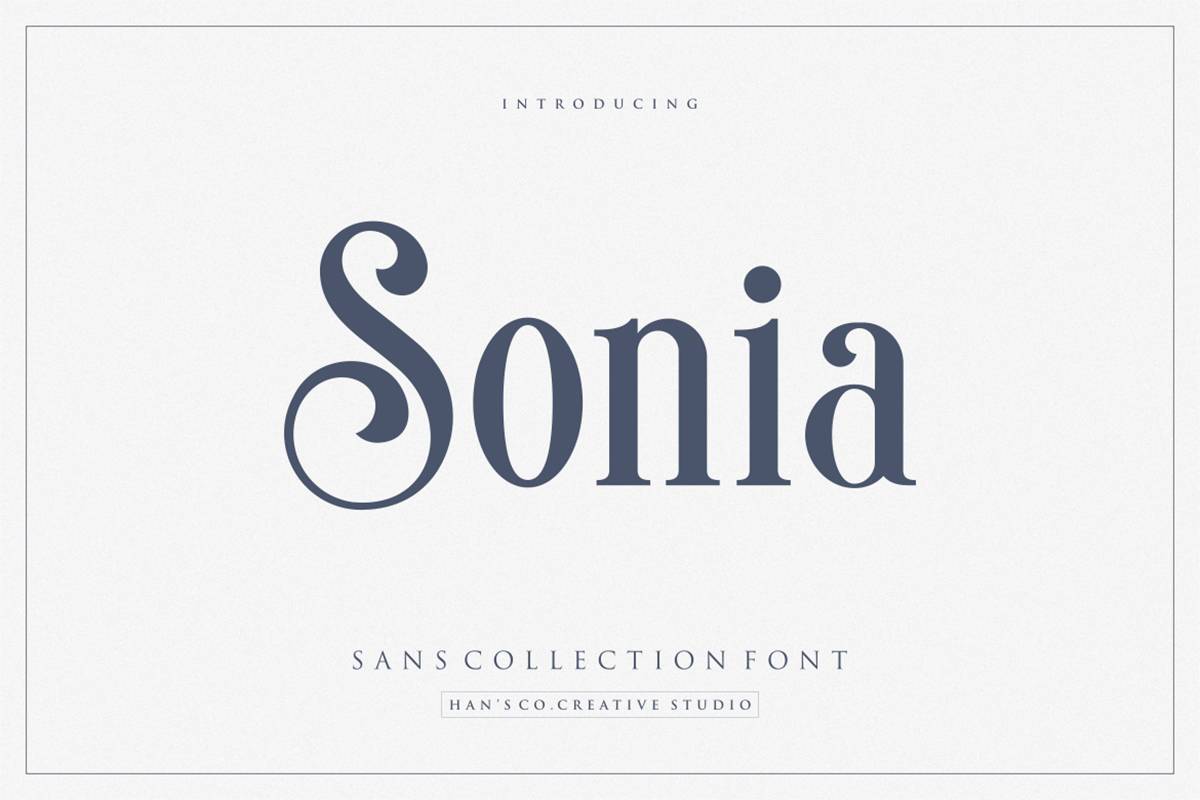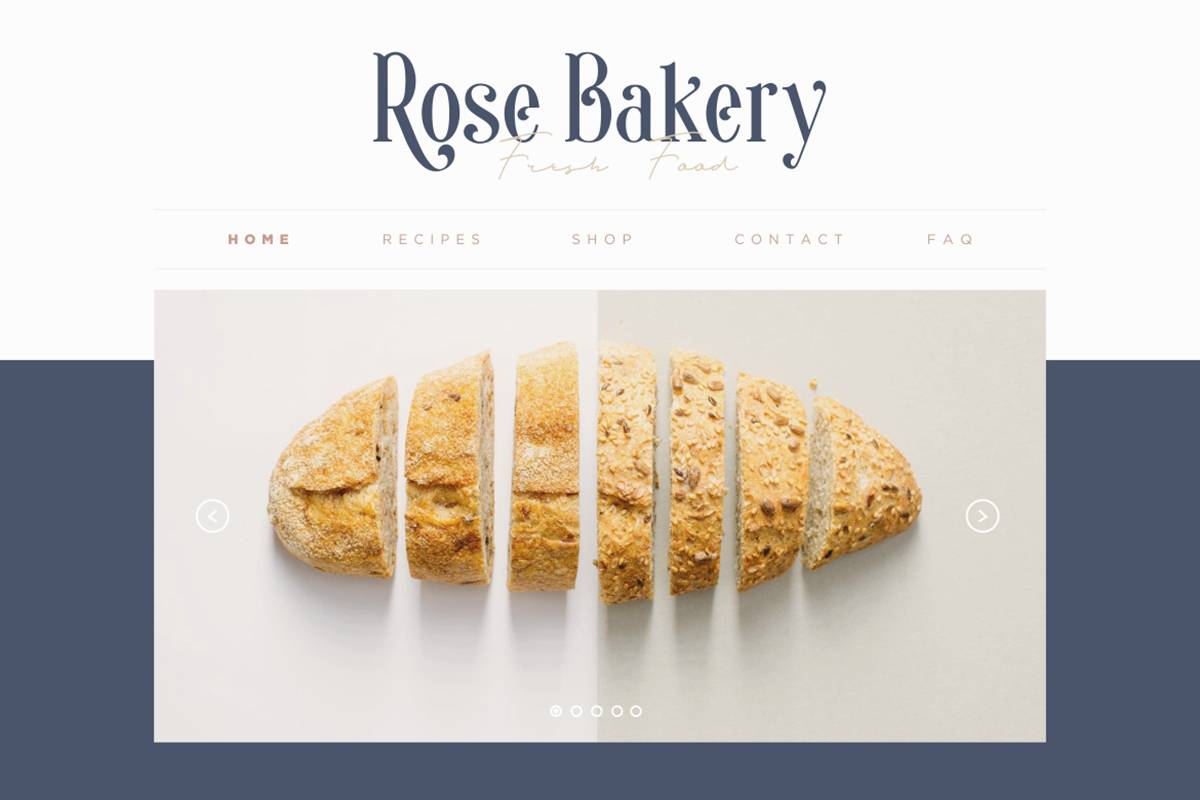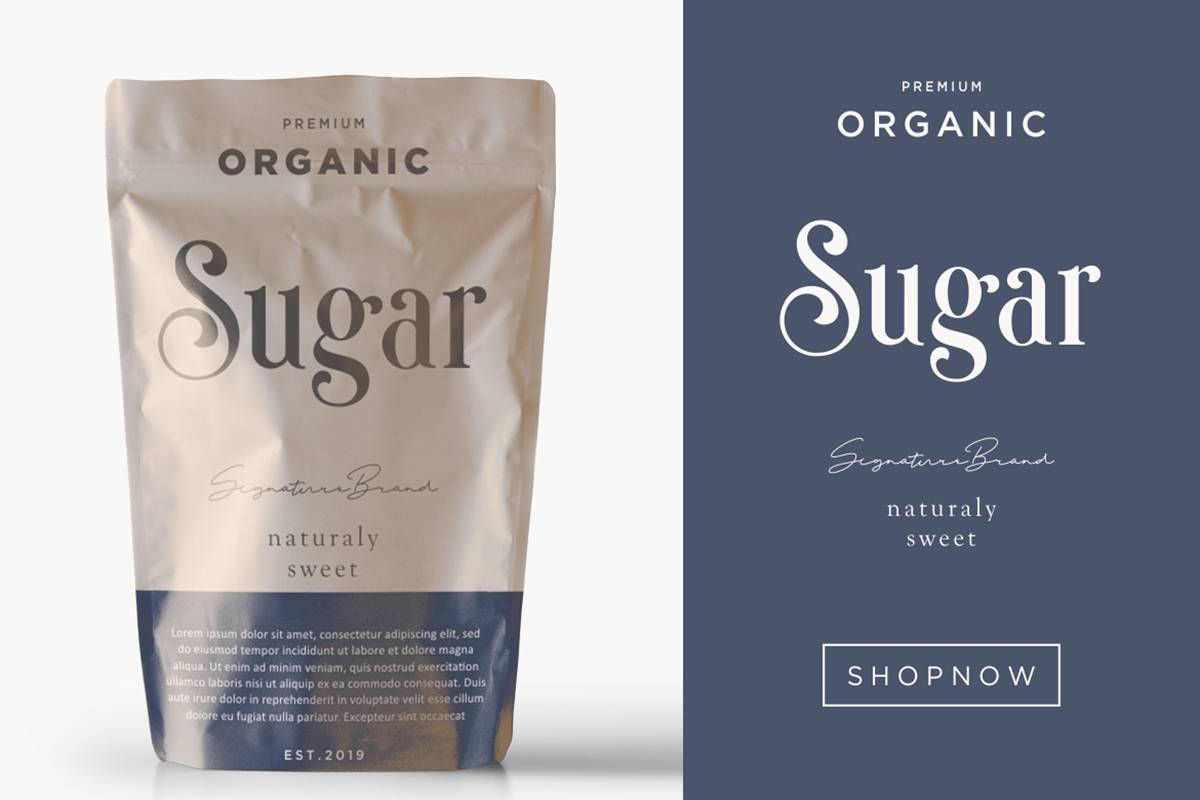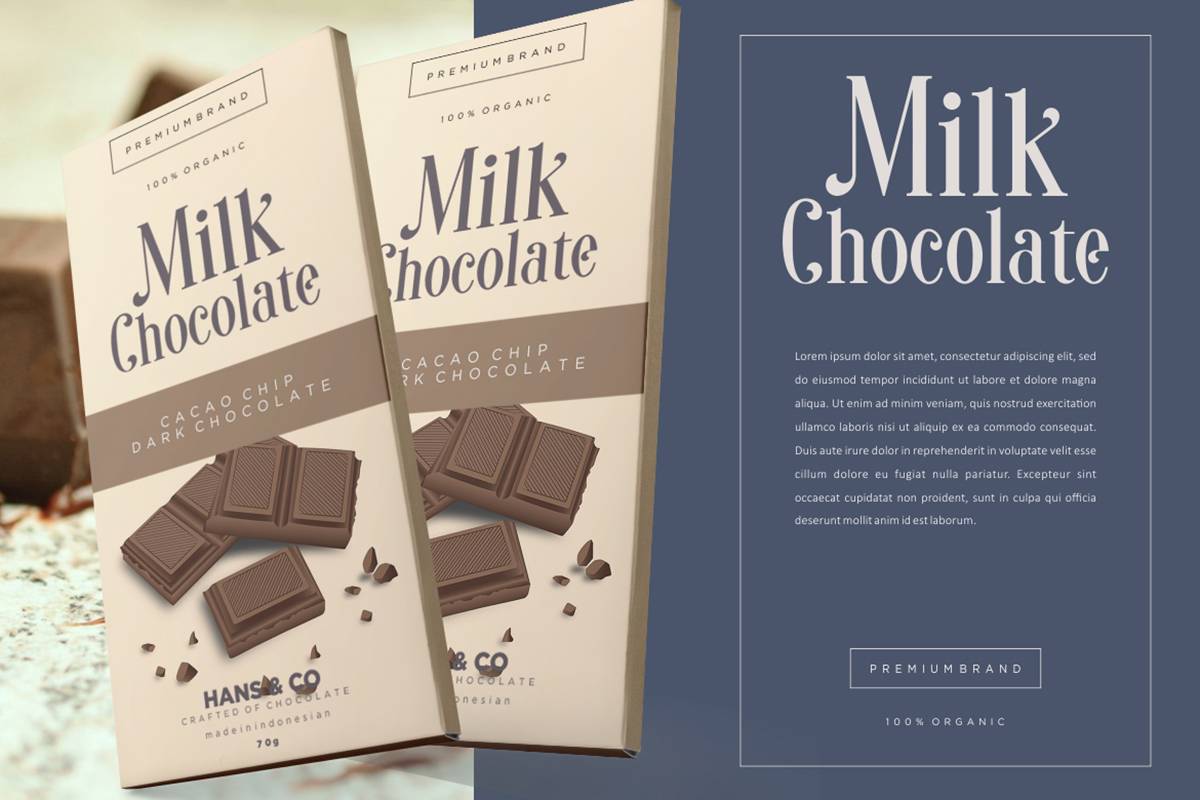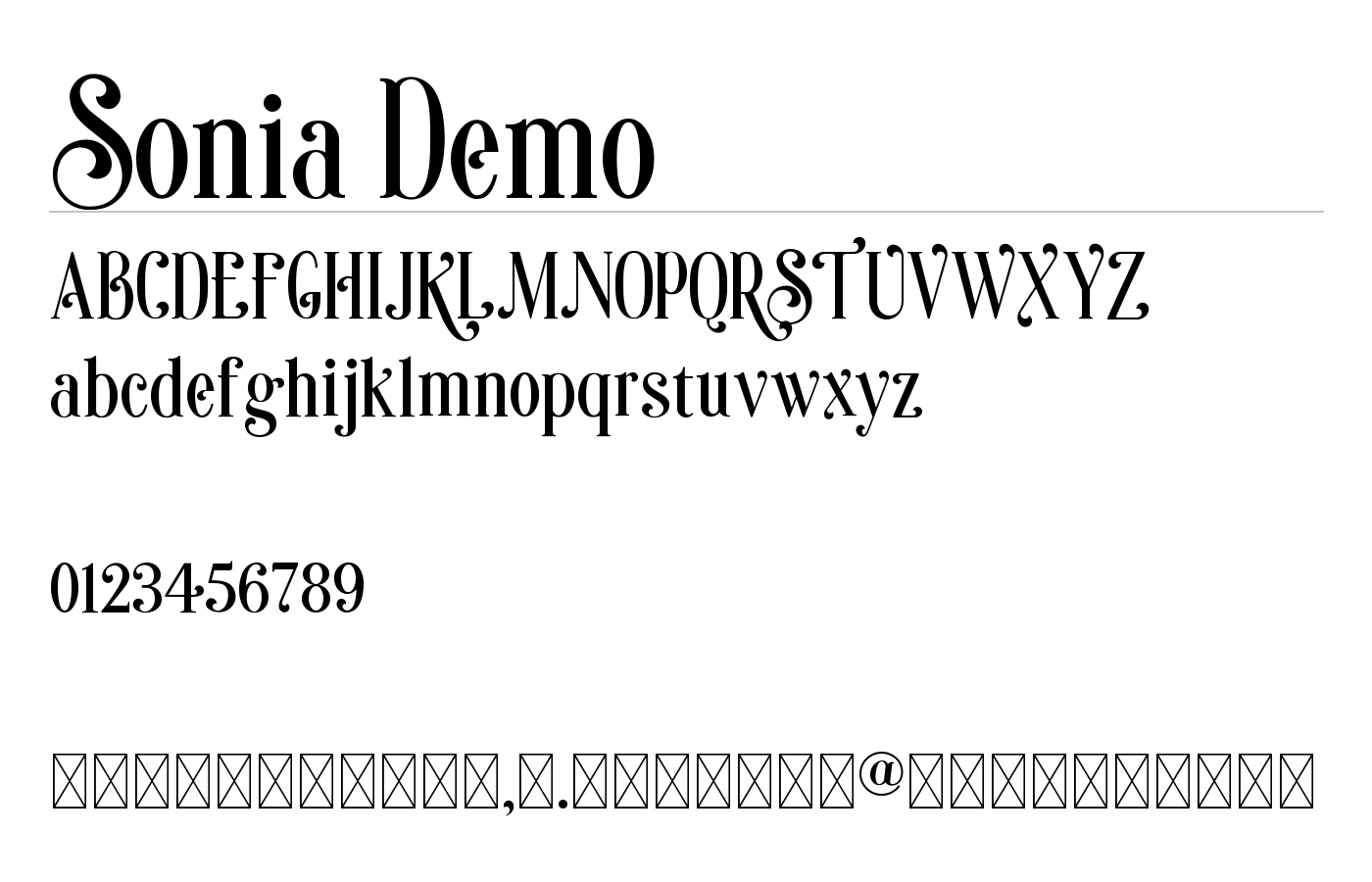
Sonia is a distinctive serif font with a vintage flair, featuring tall, narrow letterforms and elegant high contrast between thick and thin strokes. Its unique swirled terminals and decorative details add a touch of whimsy and sophistication, making it perfect for stylish branding, elegant headlines, and artistic projects that seek a classic yet playful look. This font shines in display settings where its character can truly stand out and enhance visual appeal.
Sonia Font
About Sonia Font
| Font family | Sonia Font |
| Designer | Burhan Afif |